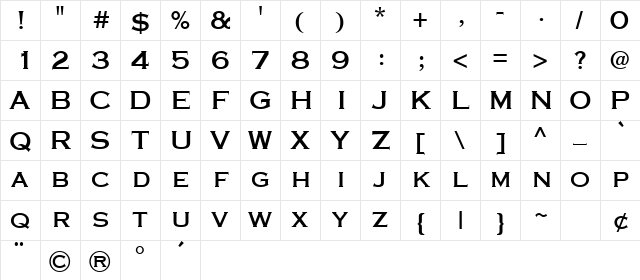
CooperPlanck6 BoldSH Font Preview
CooperPlanck6 BoldSH
CooperPlanck6 BoldSH Font Details
| Style | BoldSH |
Design Context for CooperPlanck6 Typeface
CooperPlanck6 takes a measured approach to typography — its balanced proportions and neutral character make it a reliable workhorse for both digital and print work. The heavy weight commands attention and anchors typographic hierarchies.